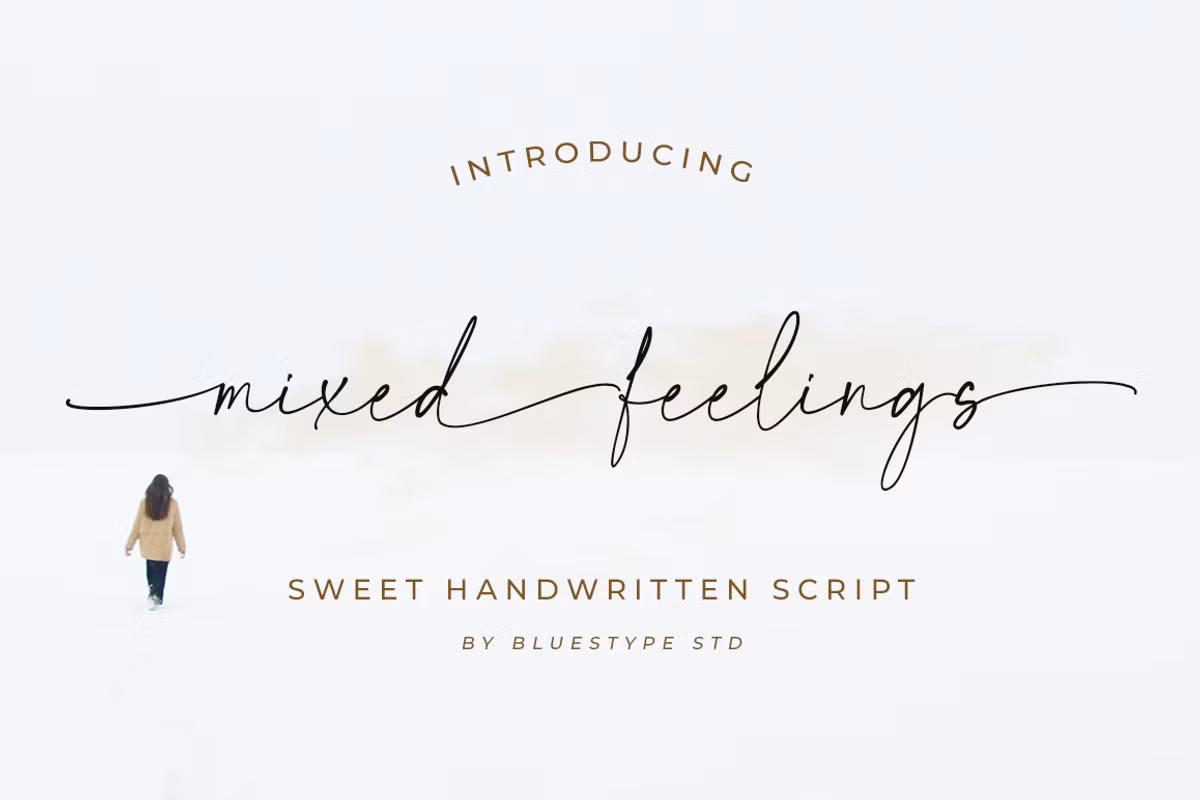
Mixed Feeling Handwritten Script Font Free Download is a stylish and expressive script typeface that captures the beauty of natural handwriting. With its flowing curves, dynamic strokes, and personalized style, this font is perfect for creating elegant invitations, branding, social media graphics, and any project that requires a personal touch.
The unique design of Mixed Feeling adds warmth and authenticity to your typography, making it ideal for weddings, personal messages, or even casual brands looking to make a memorable statement. Its natural feel brings life and character to both print and digital materials.